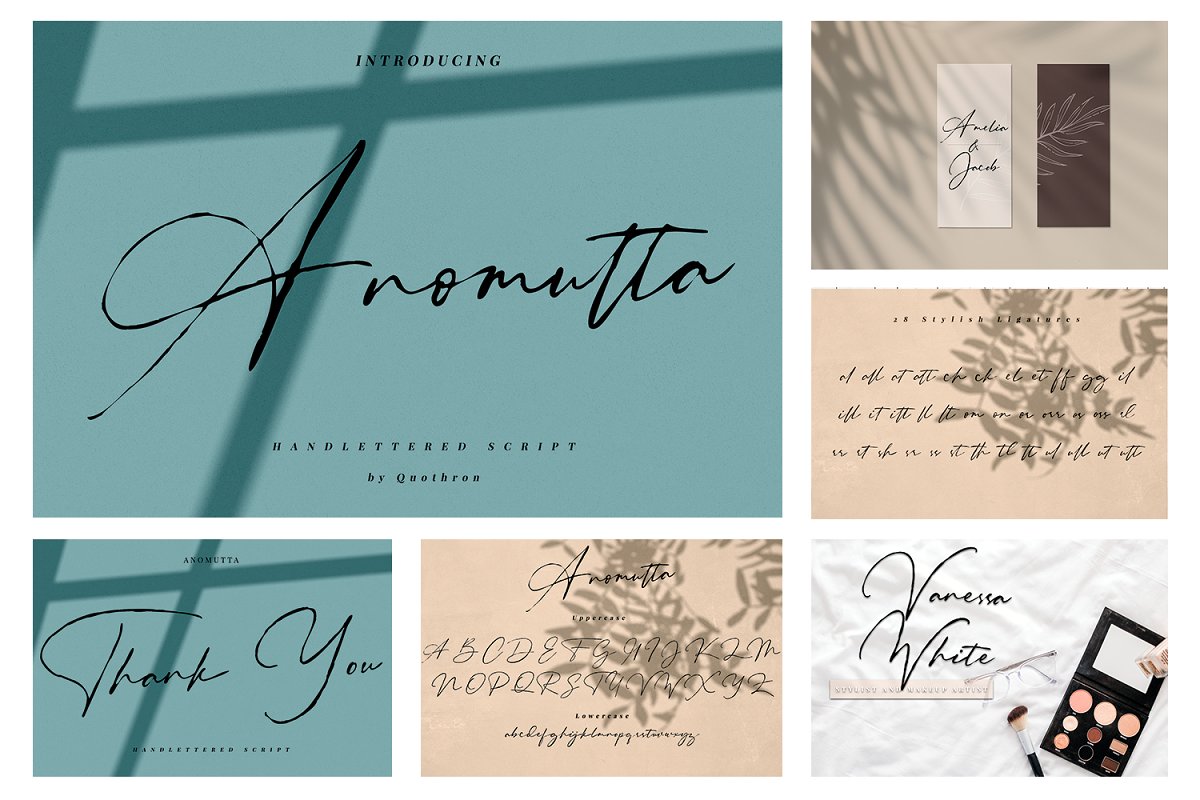
Hand Written Font Bundle 90 in 1 Free Download
About the Hand Written Font Bundle 90 in 1
Quothron presents the Handwritten Font Bundle 90 in 1!This bundle includes all my fonts for just $15, All fonts are perfect for branding, headlines, captions, logos, blogs, wedding invitations, t-shirts, letterheads, Souvenirs, signage, labels, news, posters, badges, etc, Also supported PUA encoded, Access font characters are compatible with the Silhouette Studio, Cricut Design Space